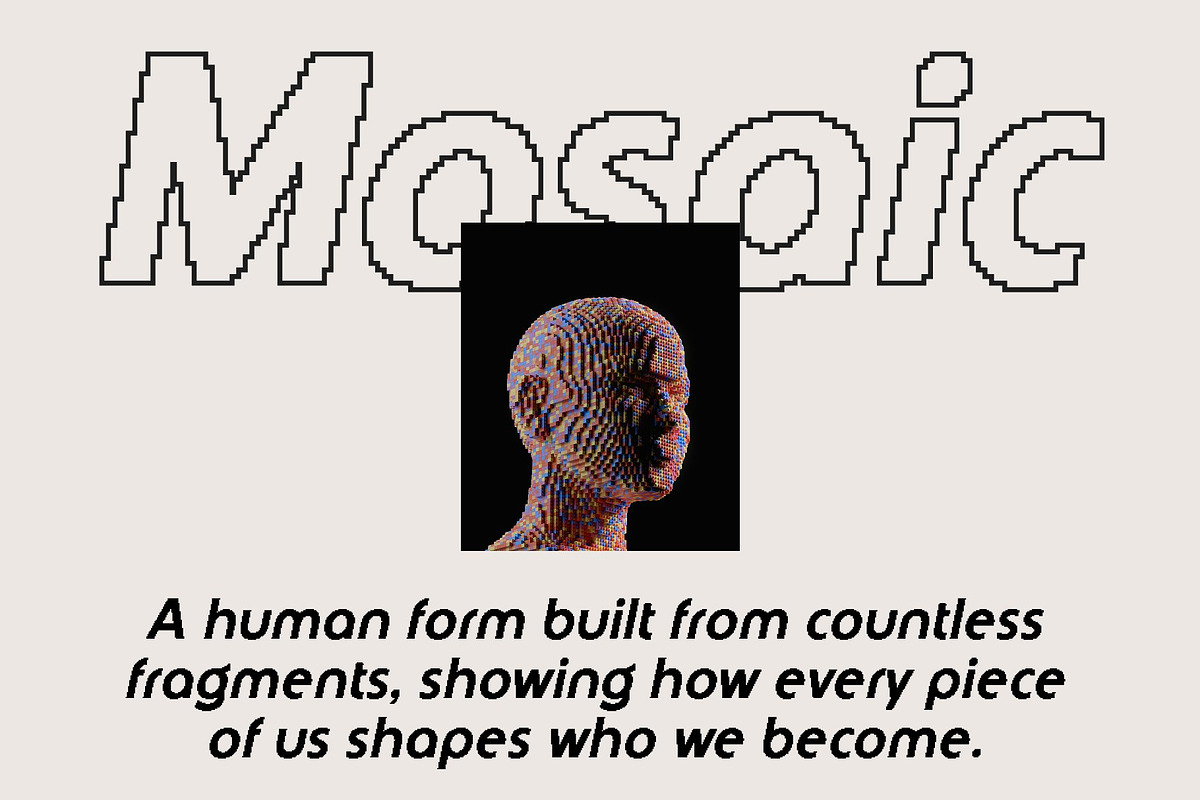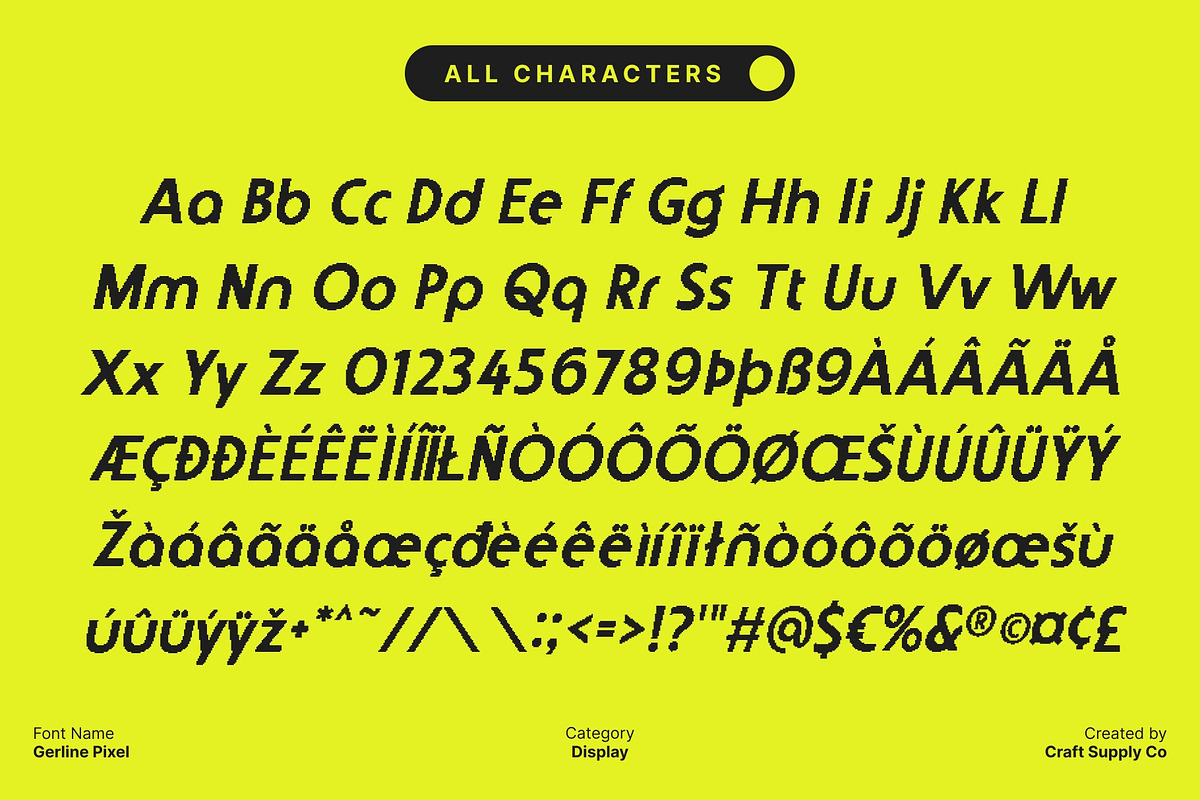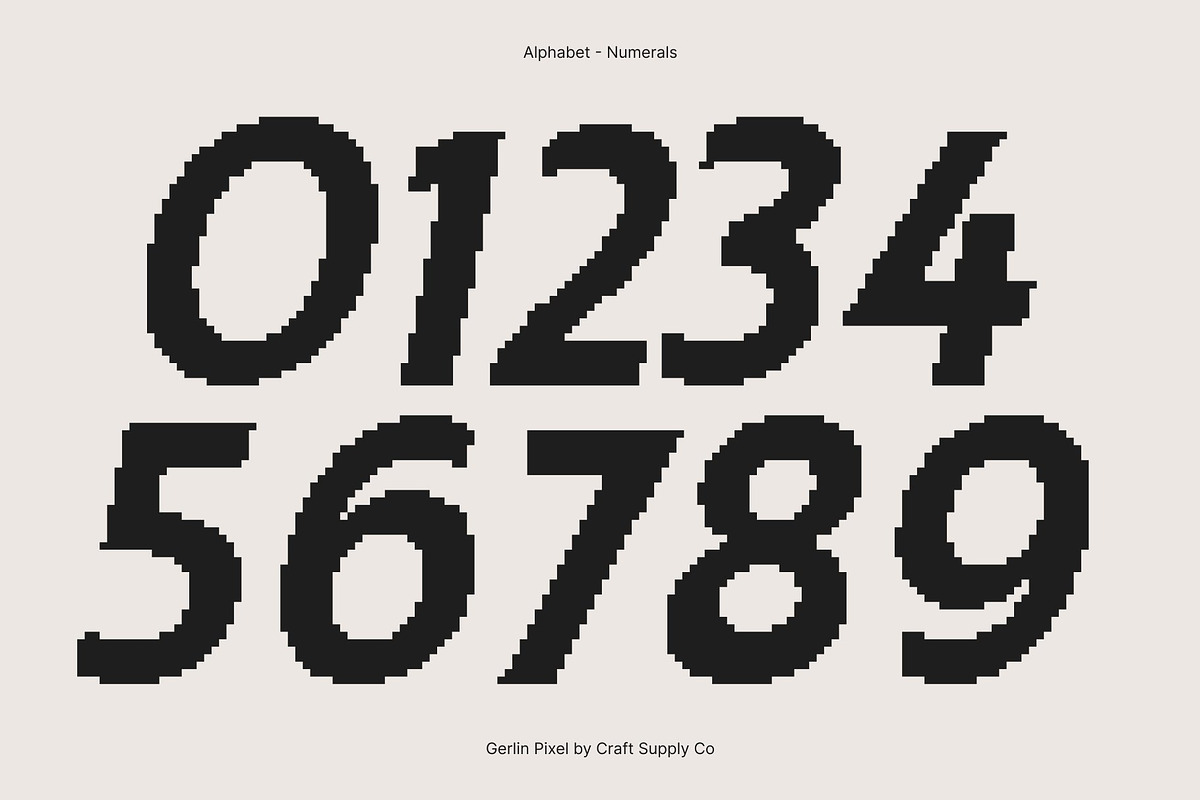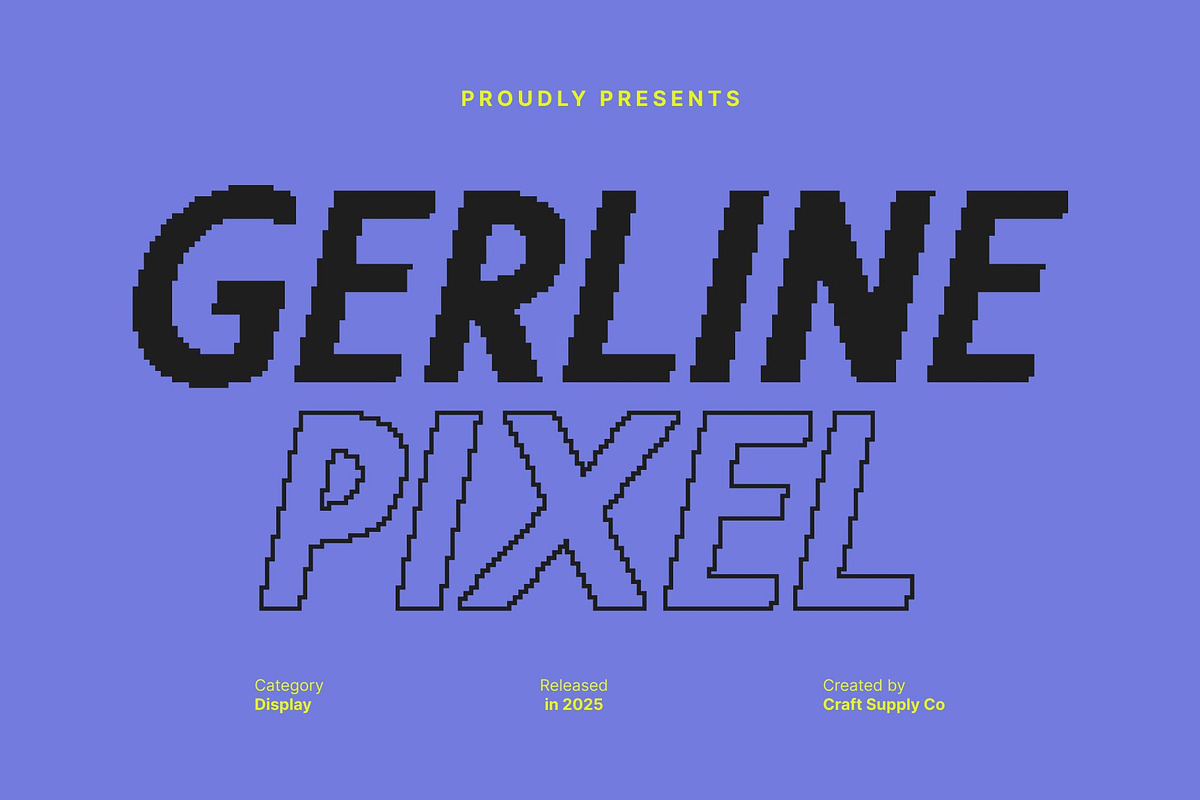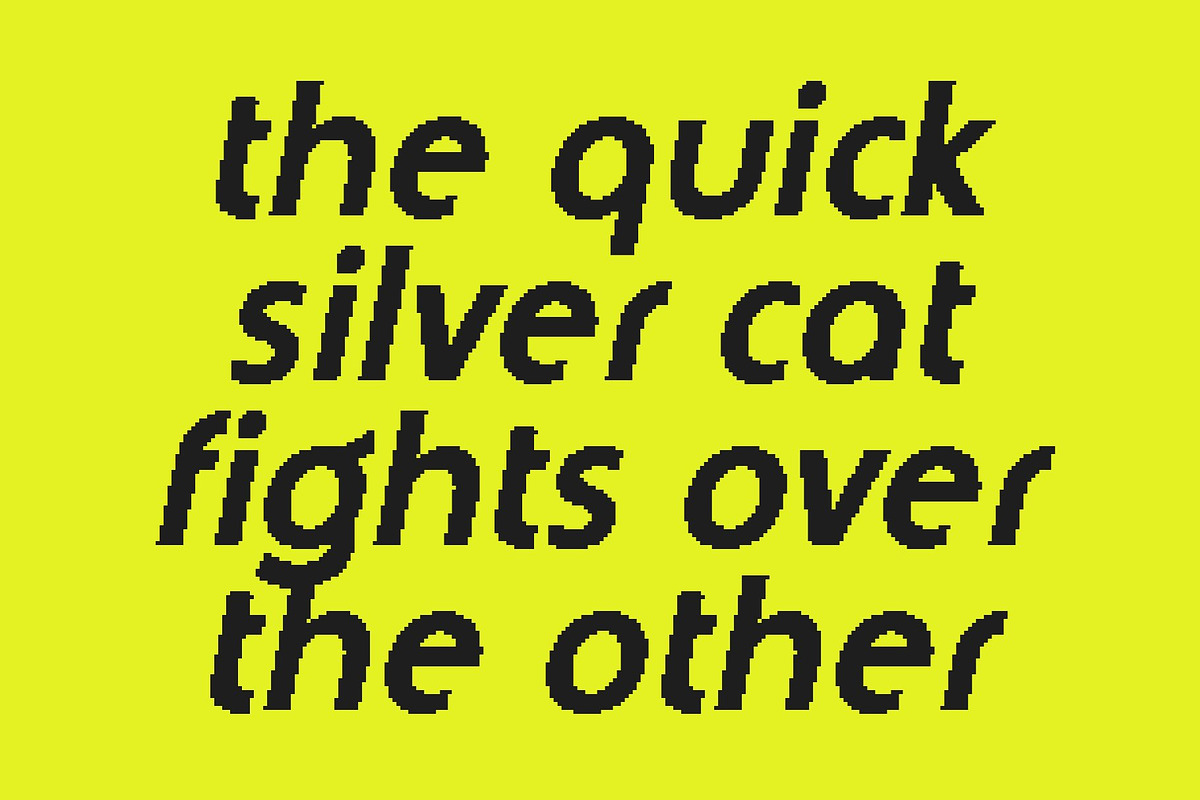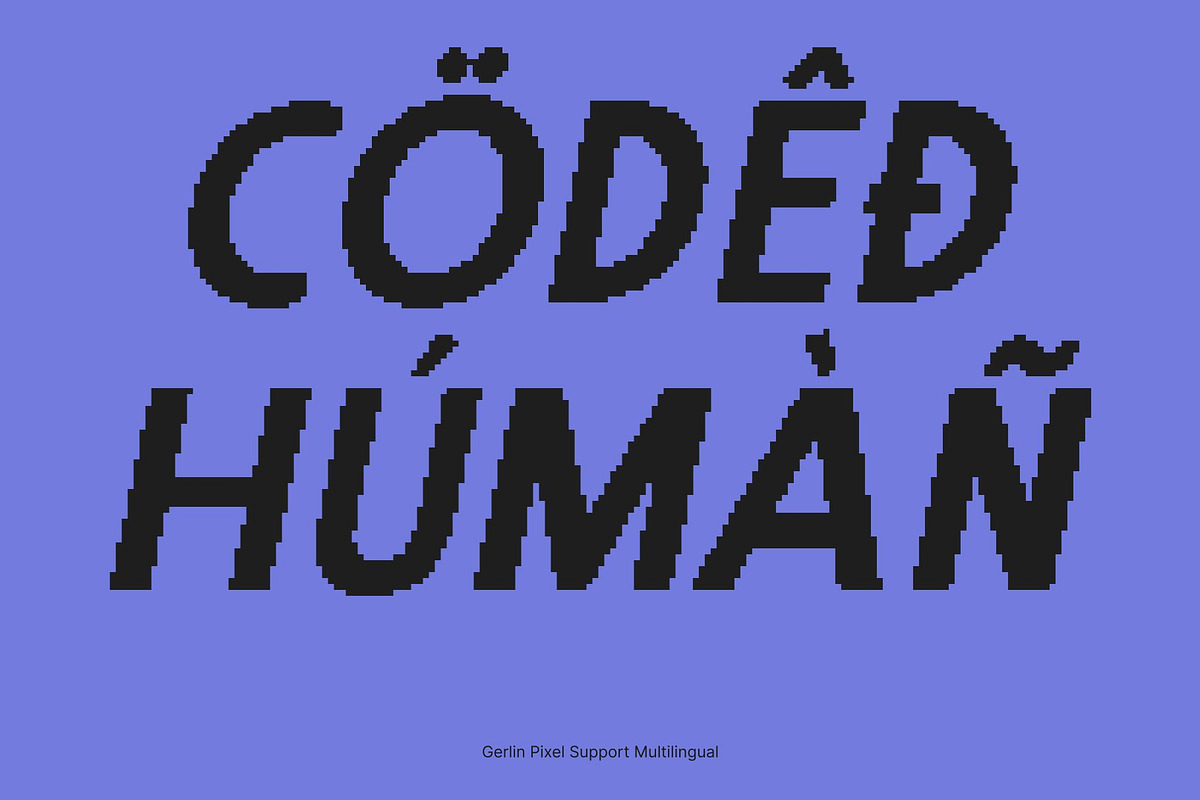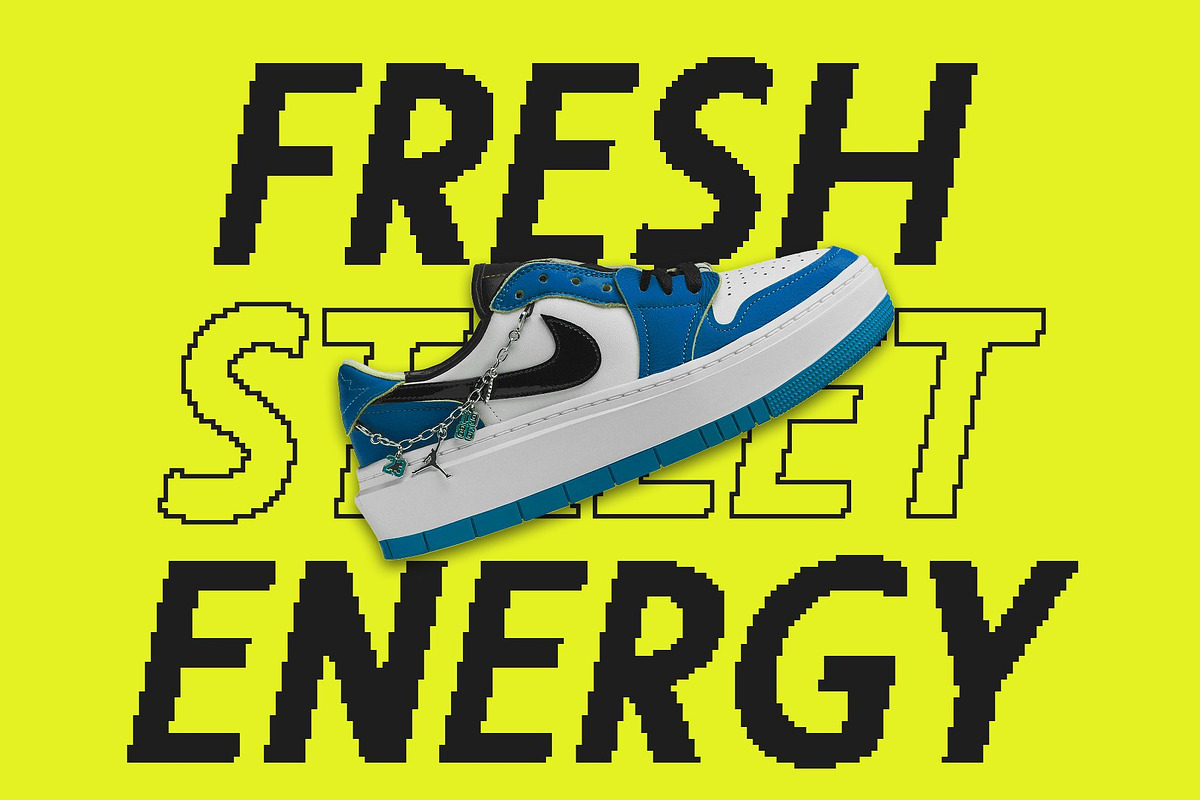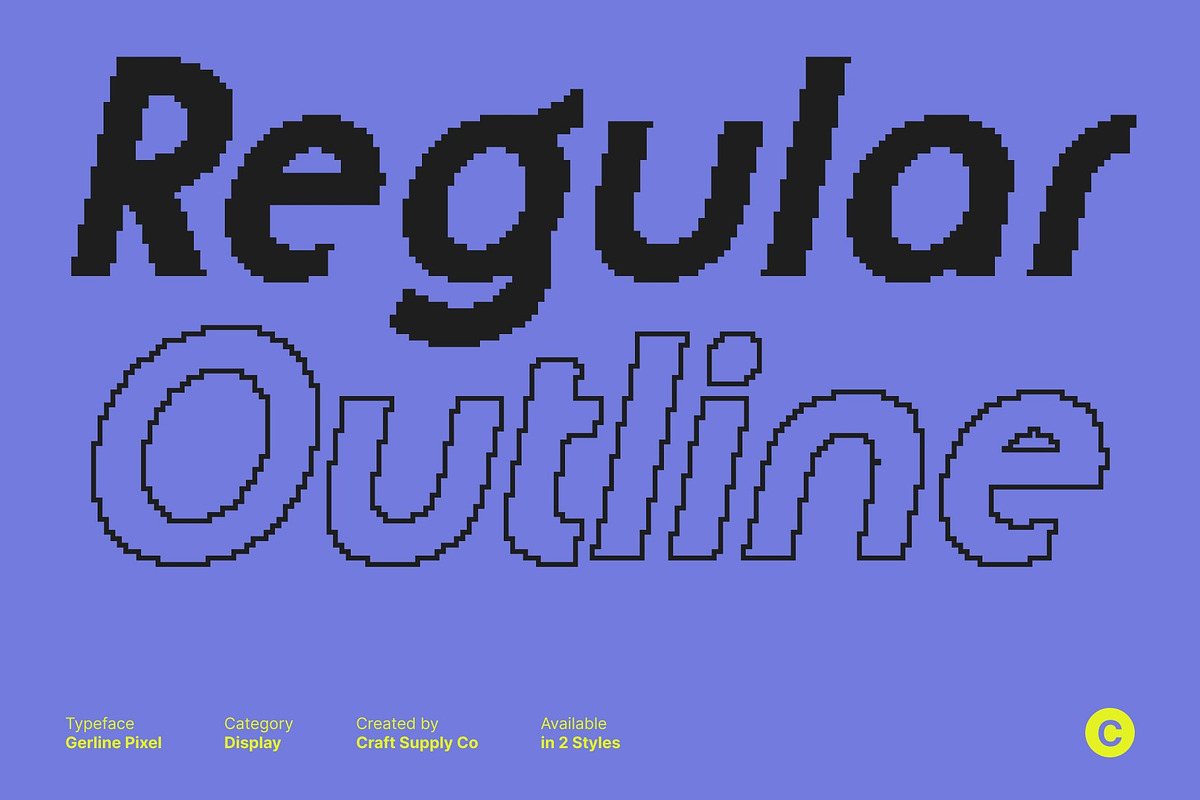
Gerline Pixel
Gerline Pixel – Bauhaus-Inspired Sans Serif with Digital Pixel Identity
Geometric Minimalism for a Clean, Functional Look This sans serif font blends the iconic principles of Bauhaus design geometric precision, minimalist structure, and functional clarity into a sleek and modern typeface. Its clean lines and balanced proportions create a sophisticated and efficient appearance, making it ideal for projects that demand a polished, contemporary feel.
Pixel Aesthetic for a Fresh Digital Impression Adding a pixel-inspired look enhances the font with a unique digital edge. The pixel styling introduces a subtle texture that feels innovative and tech-driven, offering a refreshing twist to the classic Bauhaus structure. This combination creates a visually engaging contrast between timeless geometry and modern digital culture.
Perfect for Logos, Branding, and Editorial Layouts This font adapts seamlessly to various design contexts from logos and branding to posters, magazine layouts, book titles, and digital interfaces. Its minimalist structure ensures clarity and versatility, while the pixel influence adds creative flair that stands out across both print and digital media.
Modern, Sophisticated, and Visually Distinct With its fusion of Bauhaus principles and pixel character, this font delivers a typeface that feels both classic and cutting-edge. It’s perfect for designers who want a clean, modern look with a digital twist ideal for editorial work, contemporary branding, creative posters, and forward-thinking UI designs.